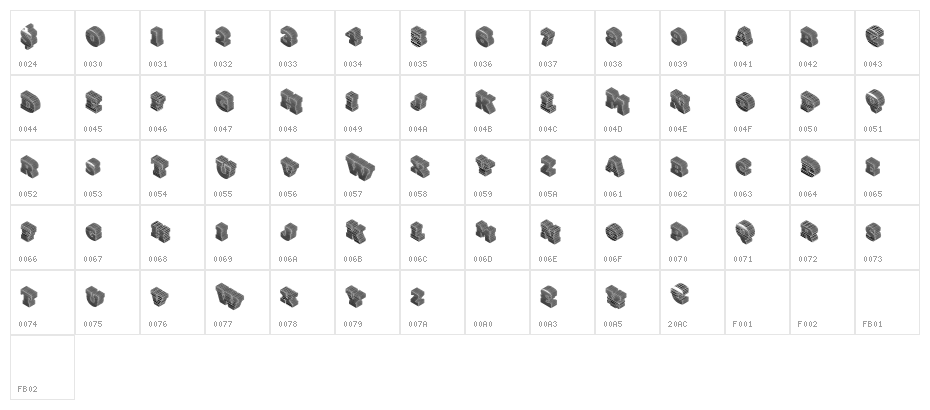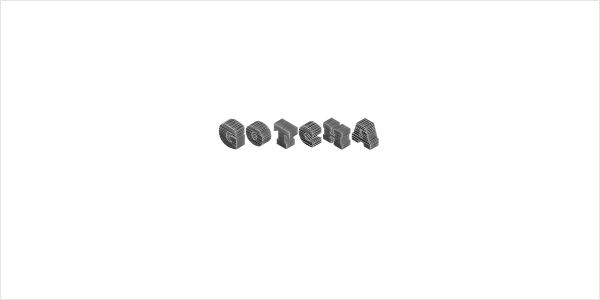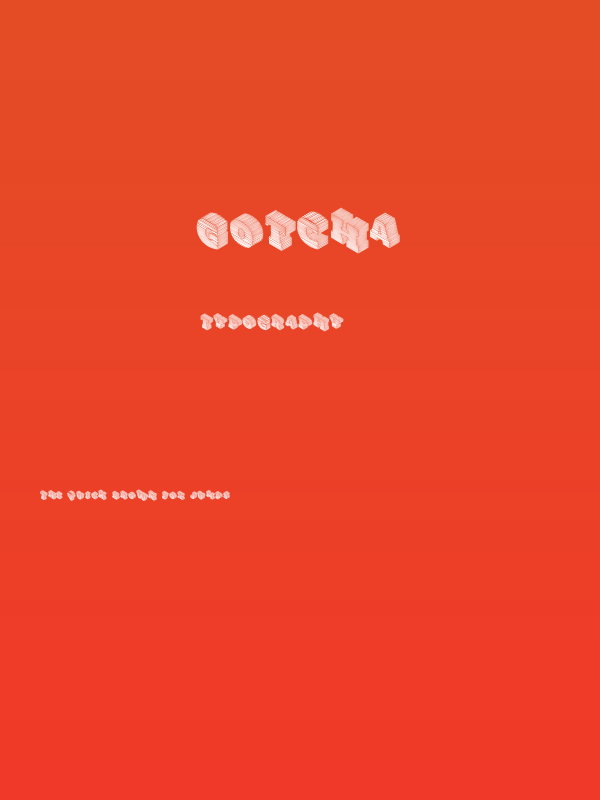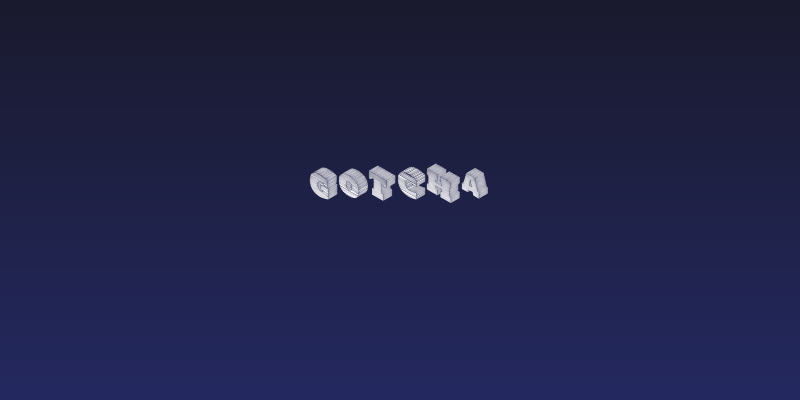
Gotcha Font
| Gesamtstil | Modern, Industrial |
| Vorgeschlagene Projekte | Ideal for posters, logos, video game graphics, and any project needing a bold, industrial aesthetic. |